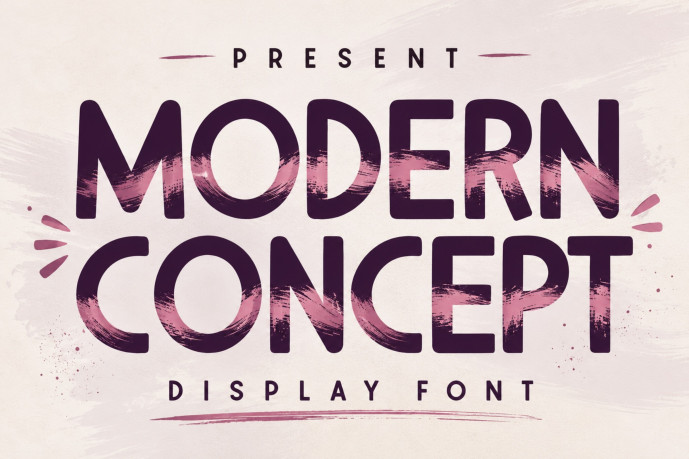
Modern Concept Font
Modern Concept is a sleek and elegant display font that combines geometric simplicity with a bold contemporary aesthetic. Designed for creators who love clean typography, this font delivers a professional and stylish appearance across both print and digital media.
Its rounded corners, balanced proportions, and modern character shapes make it ideal for premium branding, logo design, social media graphics, posters, magazine headlines, packaging, fashion branding, cosmetic labels, café menus, website headers, and advertising. Whether you’re creating minimalist branding or eye-catching marketing materials, Modern Concept offers versatility, readability, and timeless appeal.